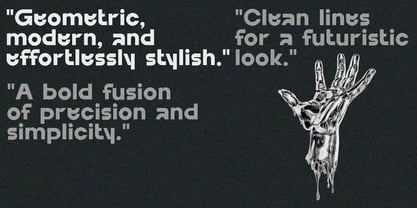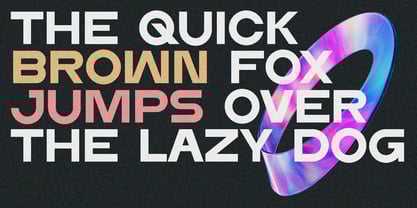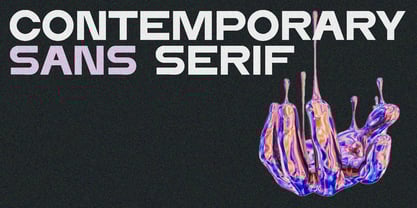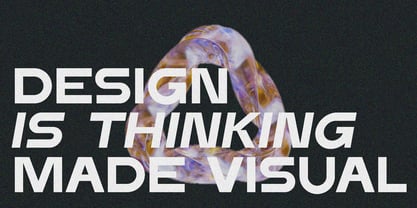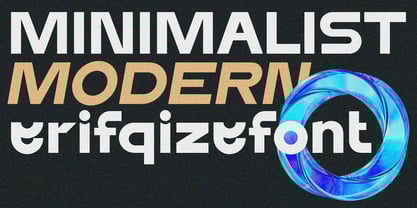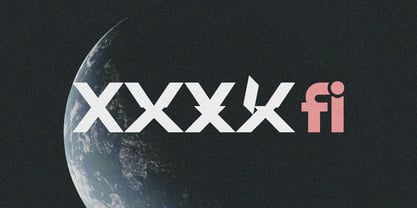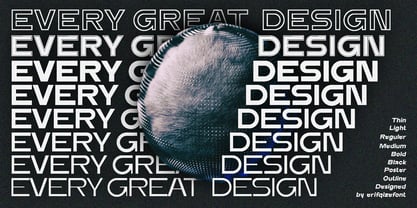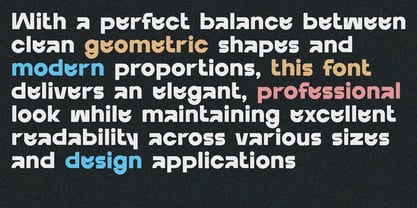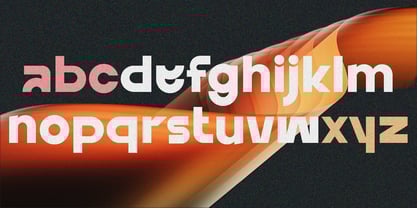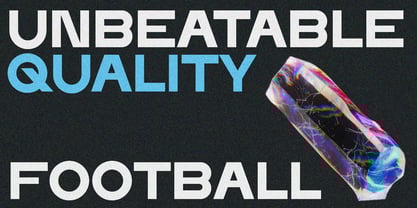
ERF Neot
by Erifqizefont
The ERF Neot Font Family was designed by Eka Rifqi Setiawan and published by Erifqizefont. ERF Neot contains 16 styles and family package options.
ERF NEOT is a modern geometric sans serif with a bold and futuristic design. Combining strong structure with sleek simplicity, this font comes in 16 family styles, offering maximum versatility for any project. With multilingual support, ERF NEOT ensures optimal readability across various languages. Perfect for branding, editorial, UI/UX, and modern design concepts, ERF NEOT is the ideal choice for those who seek a clean, sharp, and professional aesthetic.
About Erifqizefont
Introducing Erifqizefont, a Foundry led by Eka Rifqi Setiawan. Originating from Eka's experience as an Icon Designer, Erifqizefont specializes in bold, symmetrical Display Fonts with futuristic elements, occasionally exploring retro and whimsical styles. Based in Indonesia, Erifqizefont integrates the nation's cultural heritage into its designs. As a sole proprietor, Eka focuses on crafting superior, unique fonts, setting Erifqizefont apart in the industry.